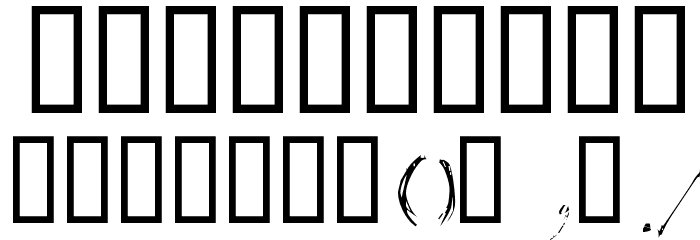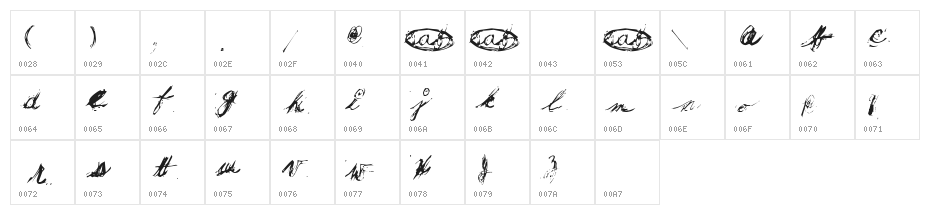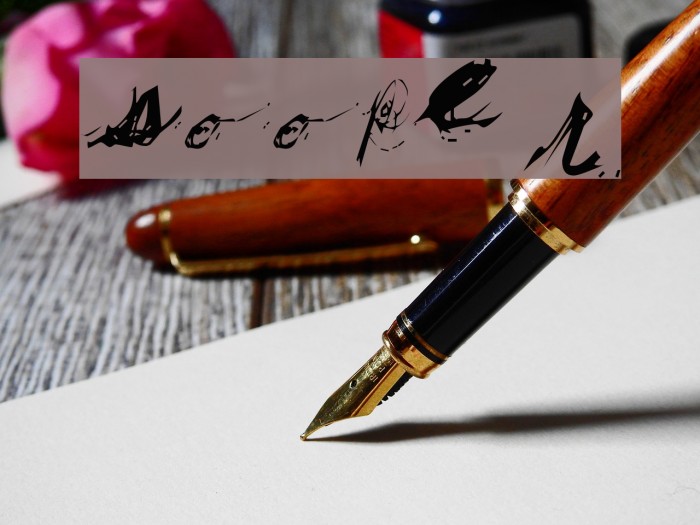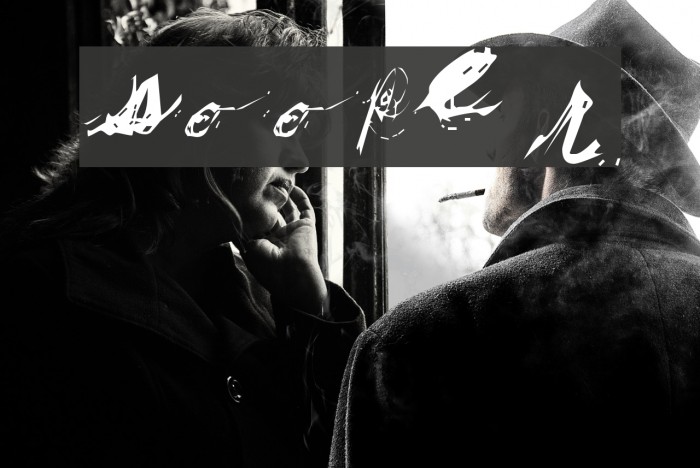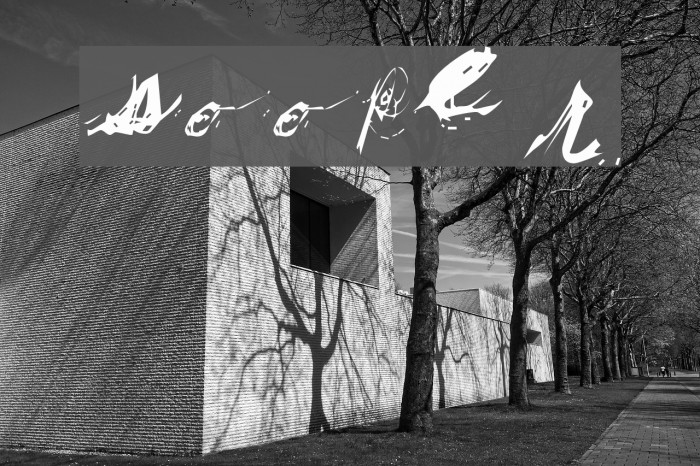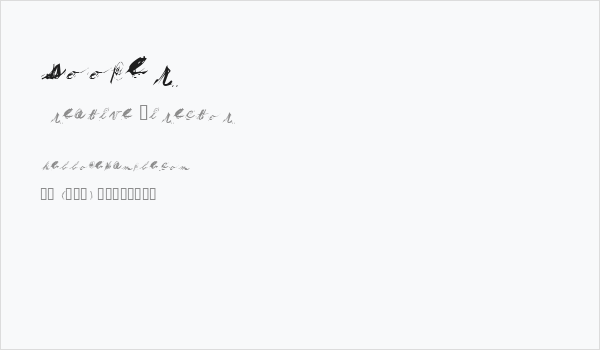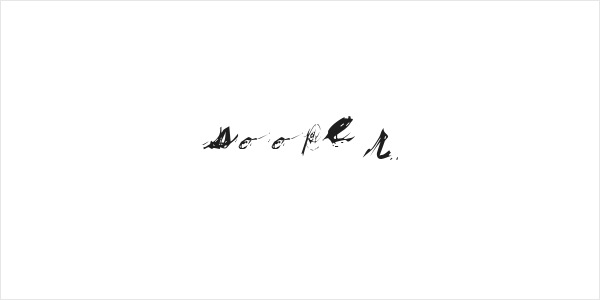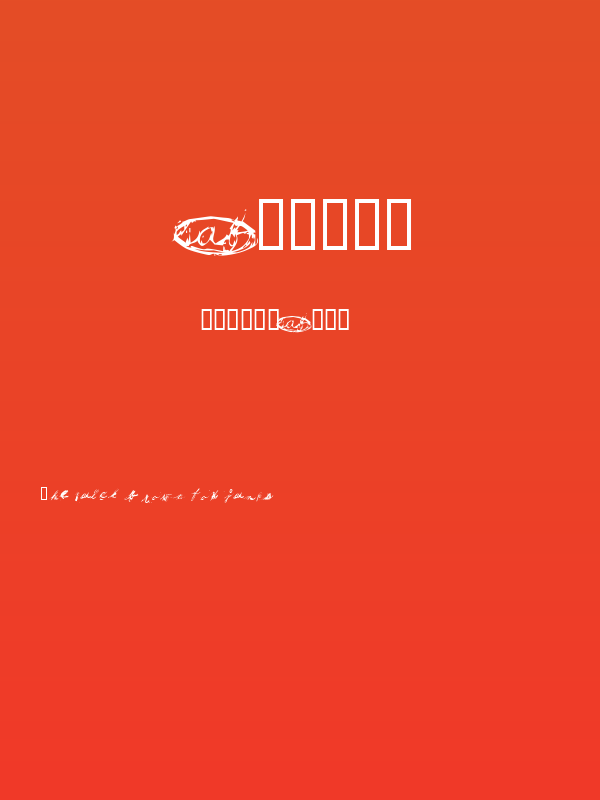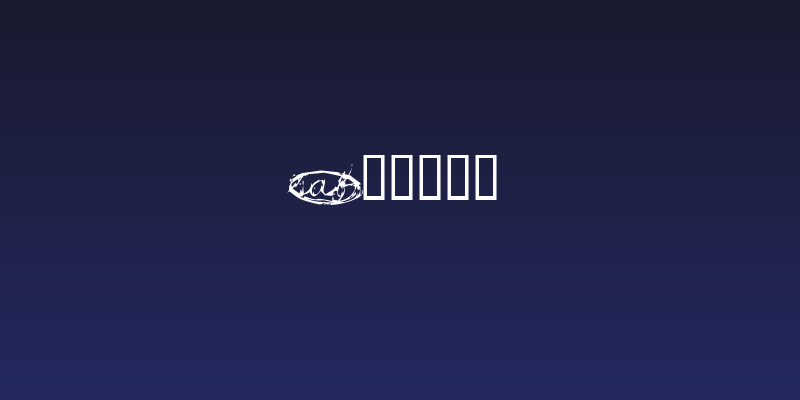
sooper Font
sooper Description
This font exhibits a highly decorative and artistic style, characterized by its expressive and fluid strokes. The letters appear as if they have been hand-drawn with a brush, giving them a dynamic and energetic feel. The strokes are uneven, with varying thicknesses that create a sense of movement and spontaneity. This font is reminiscent of calligraphic or graffiti styles, with a modern twist. The characters are closely spaced, adding to the compact and cohesive appearance of the text. The overall aesthetic is bold and eye-catching, making it suitable for creative and unconventional design projects.
| Use Case | Headlines, Logos, Artistic projects |
| Proposed Projects | Ideal for artistic posters, album covers, branding for creative industries, and any project requiring a bold, expressive typeface. |